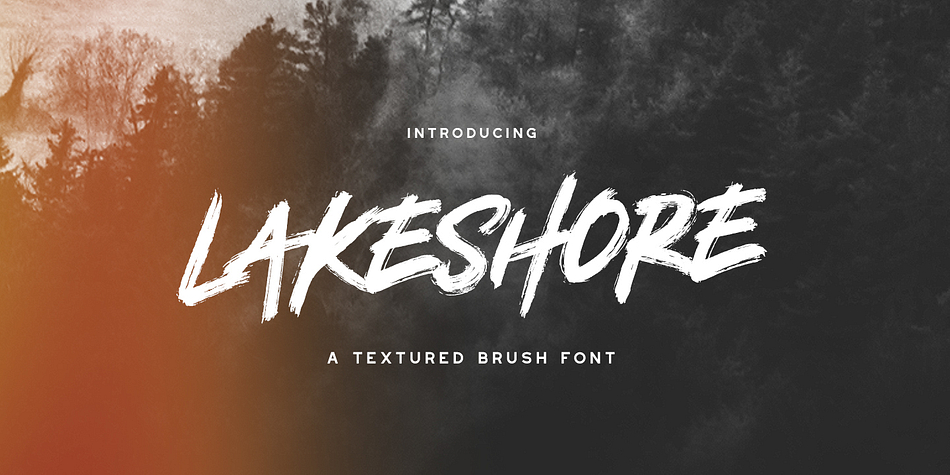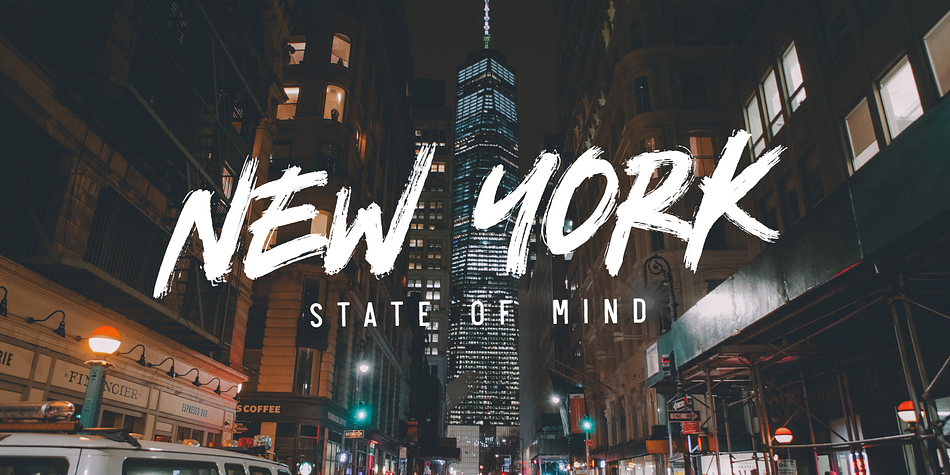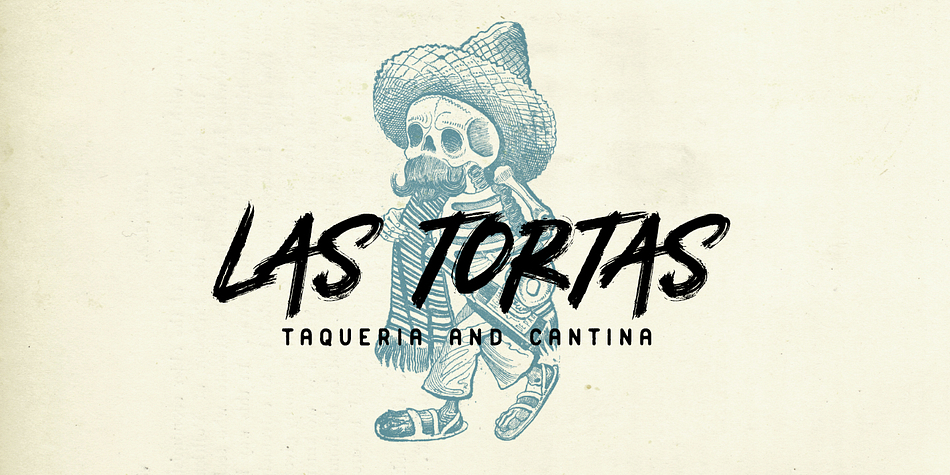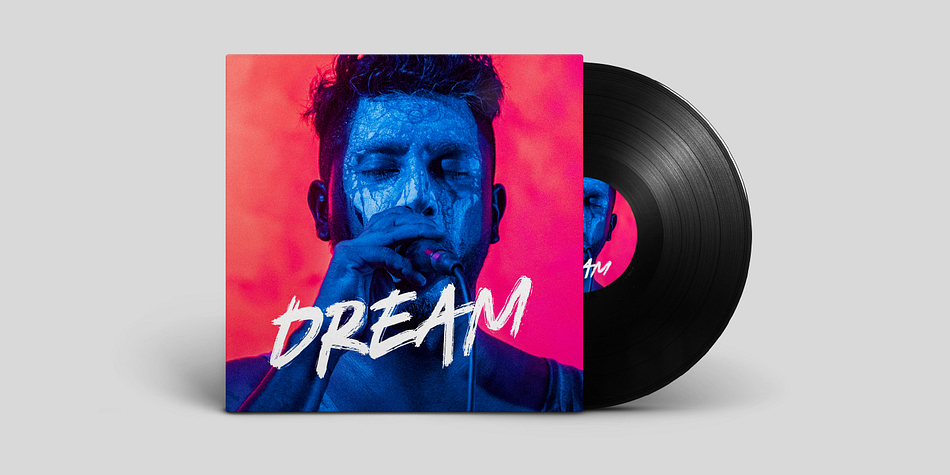
Designed by Greg Nicholls, Lakeshore is a grunge and hand drawn font family. This typeface has three styles and was published by Rook Design Supply.
Lakeshore is the modern, hand painted font that you’ve been looking for. Each character was carefully painted (often more than fifty times) until the results were nothing short of perfect. A ton of detail was preserved when the characters were digitized, so that large letters will look fantastic up close.
Styles | Grunge, Hand Drawn |
Designer | Greg Nicholls |